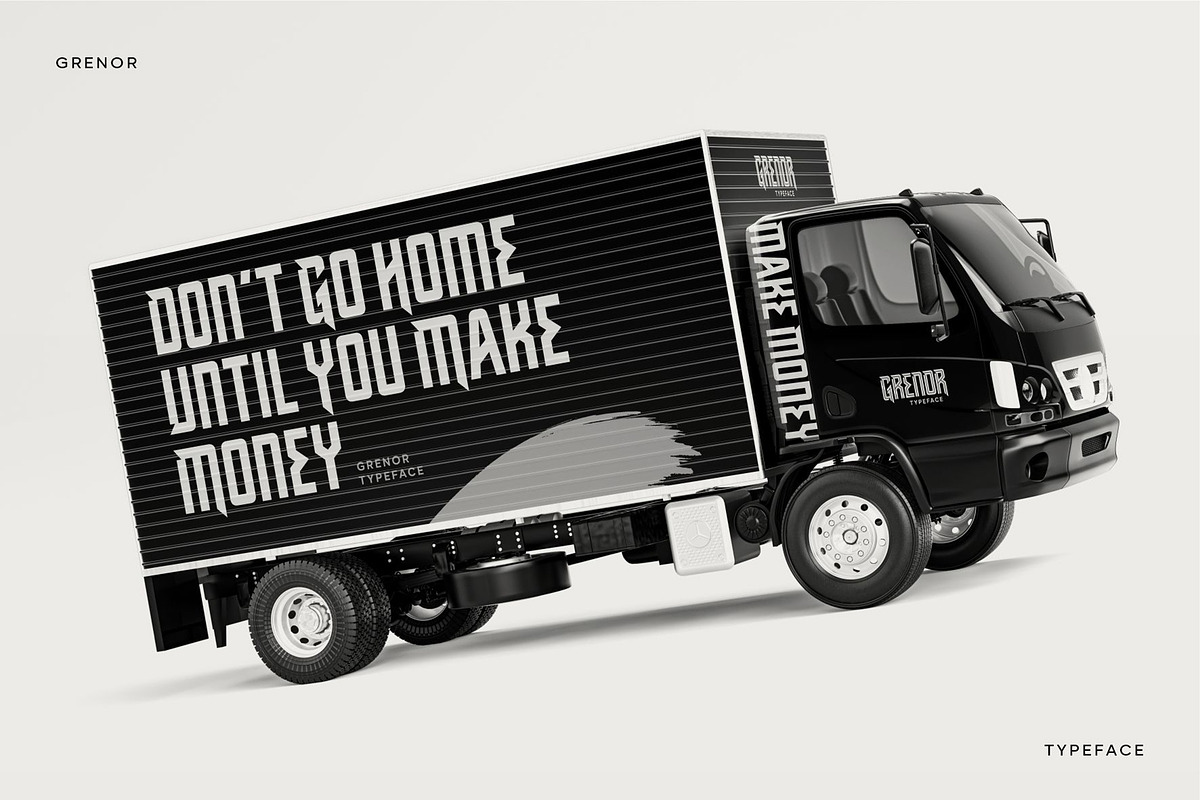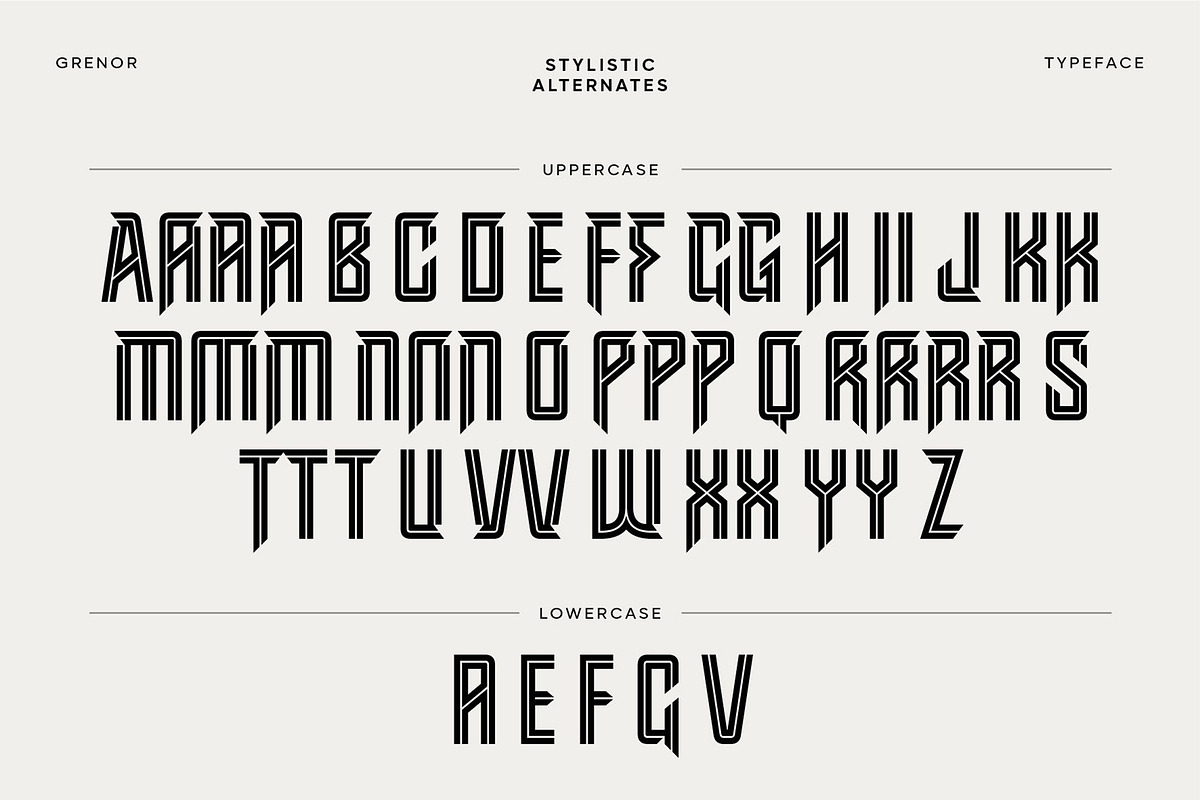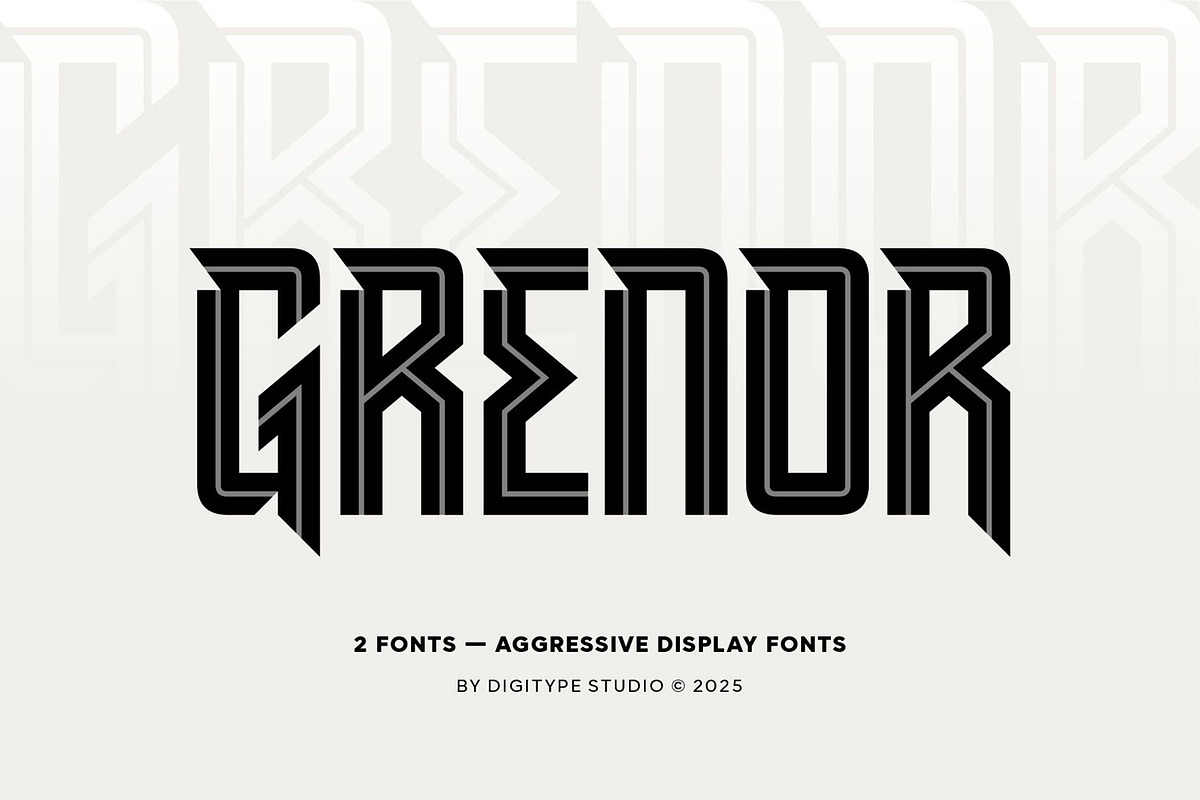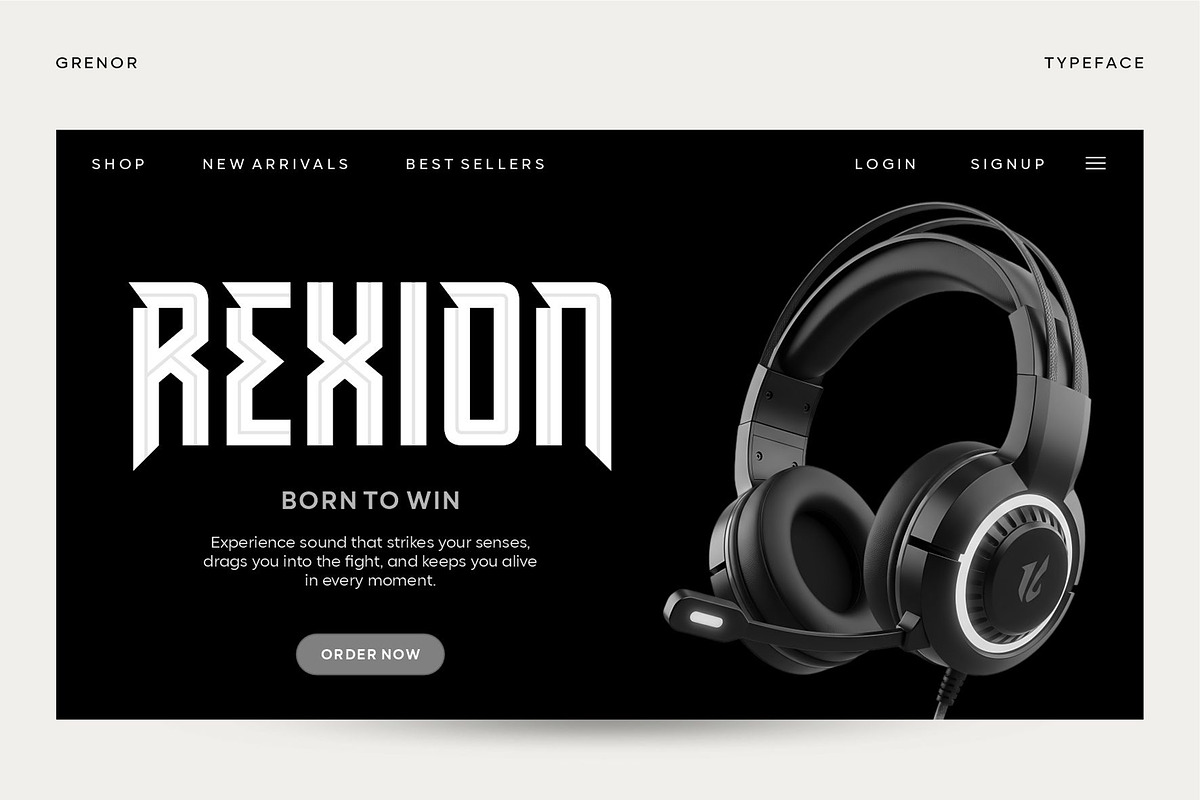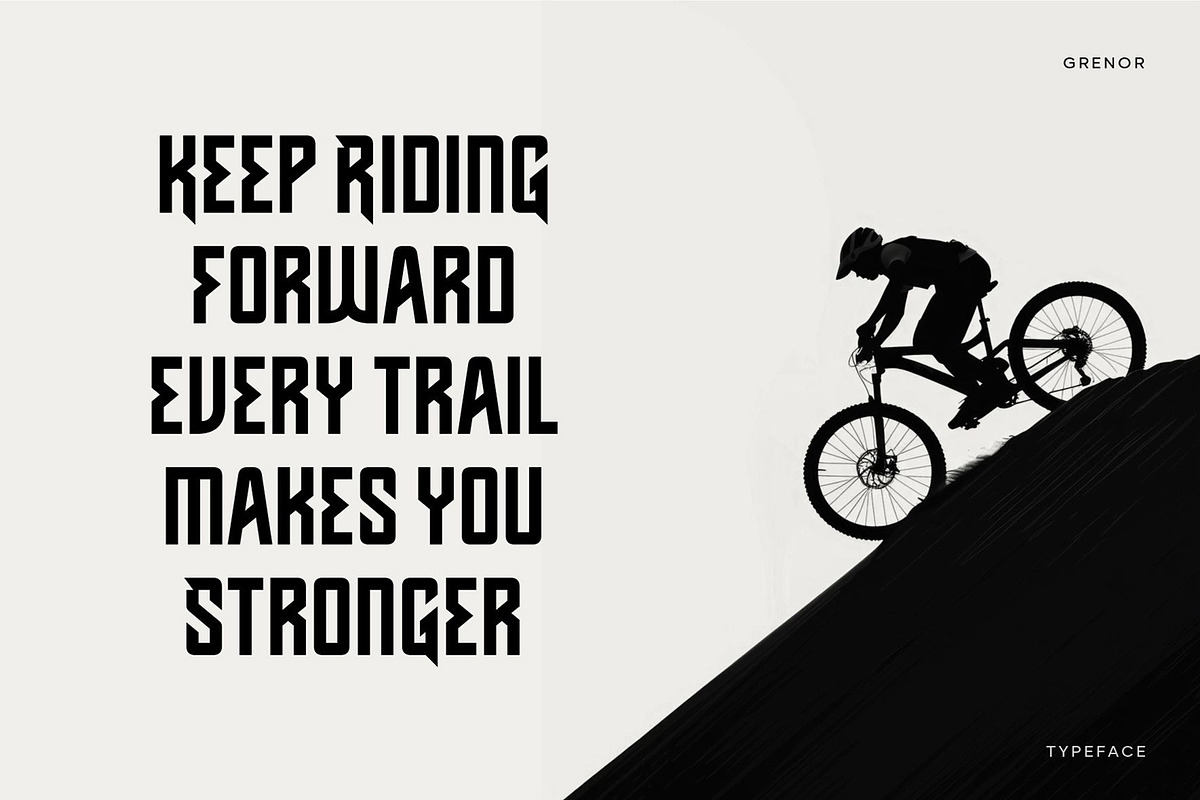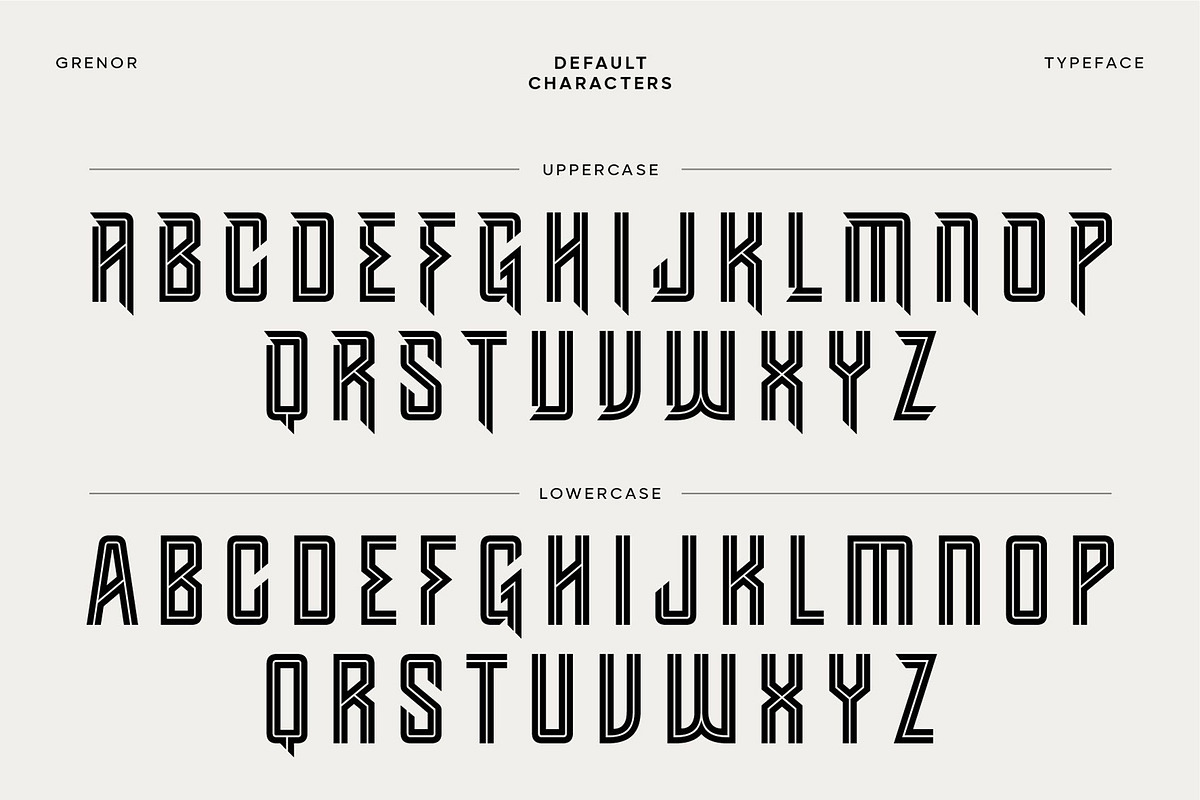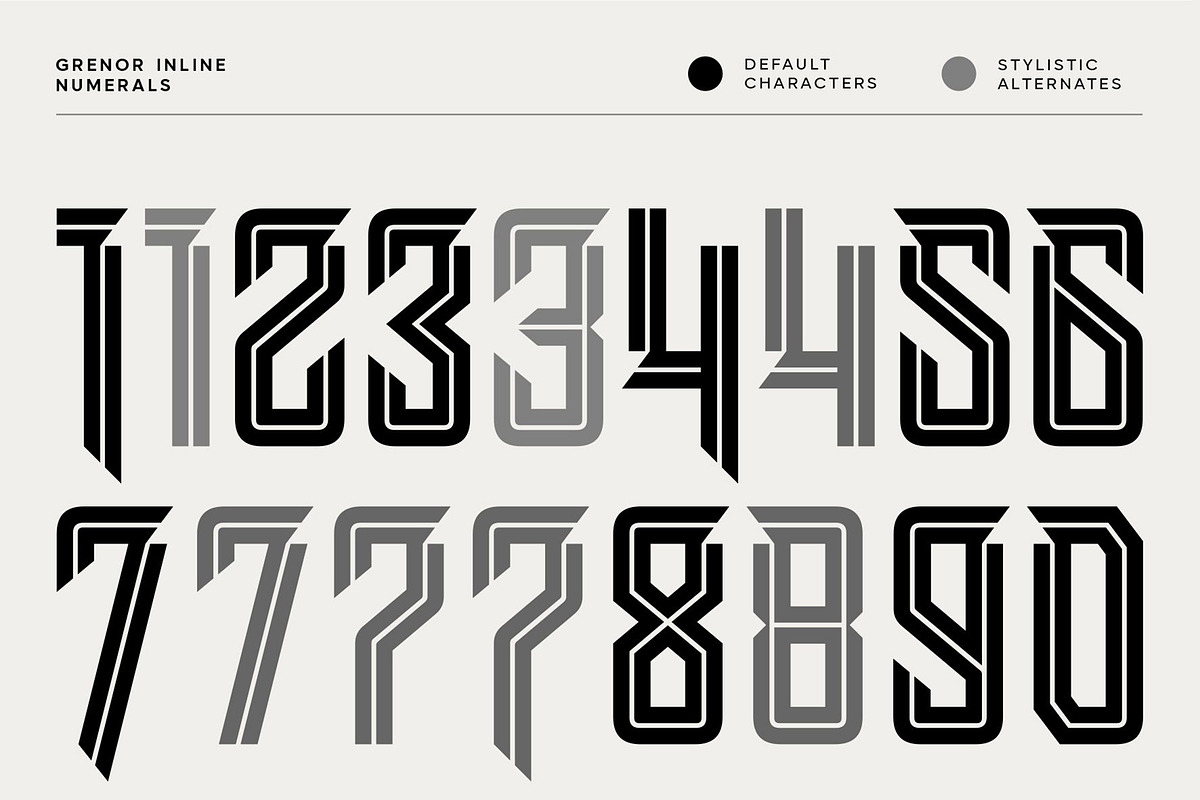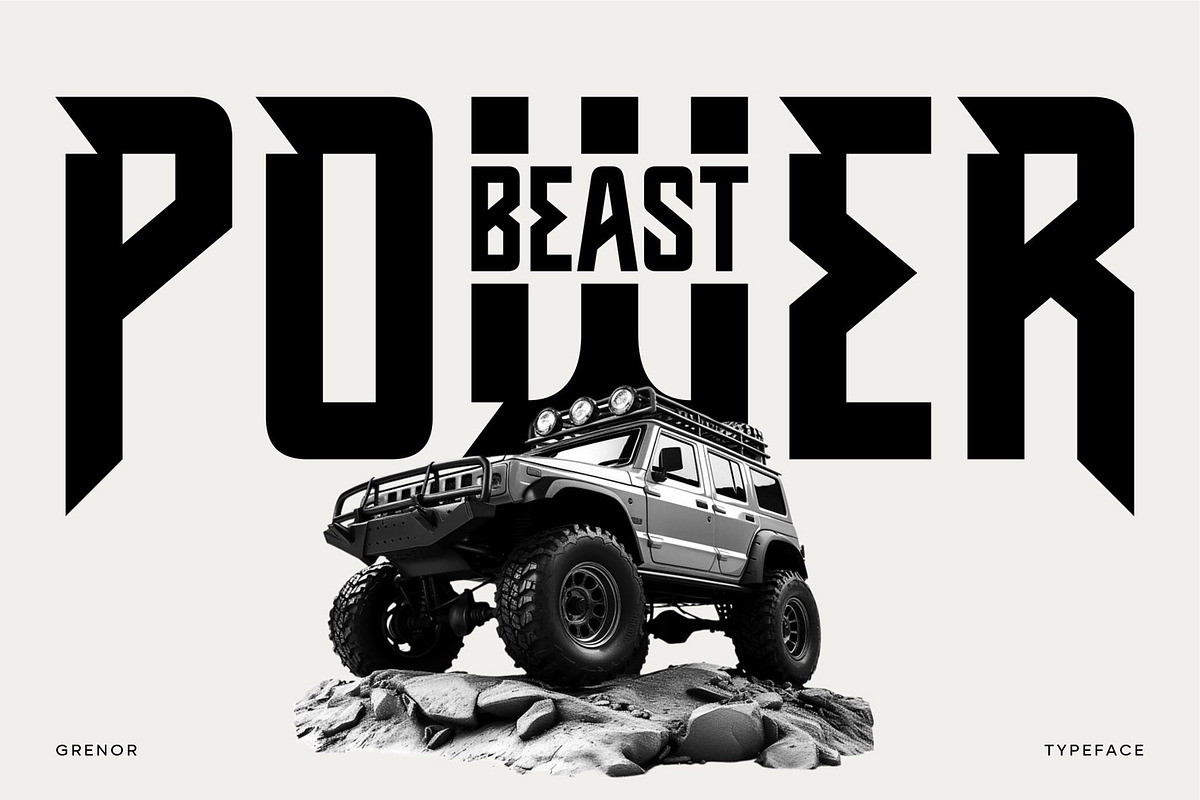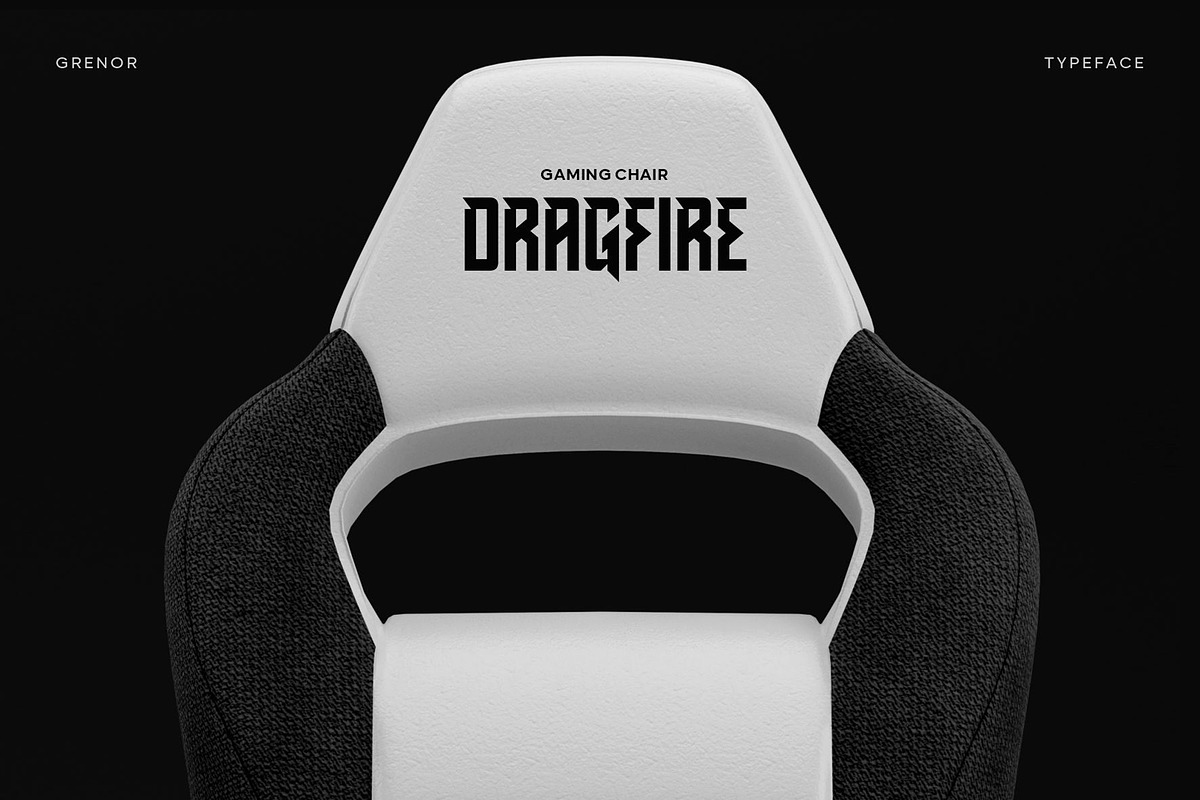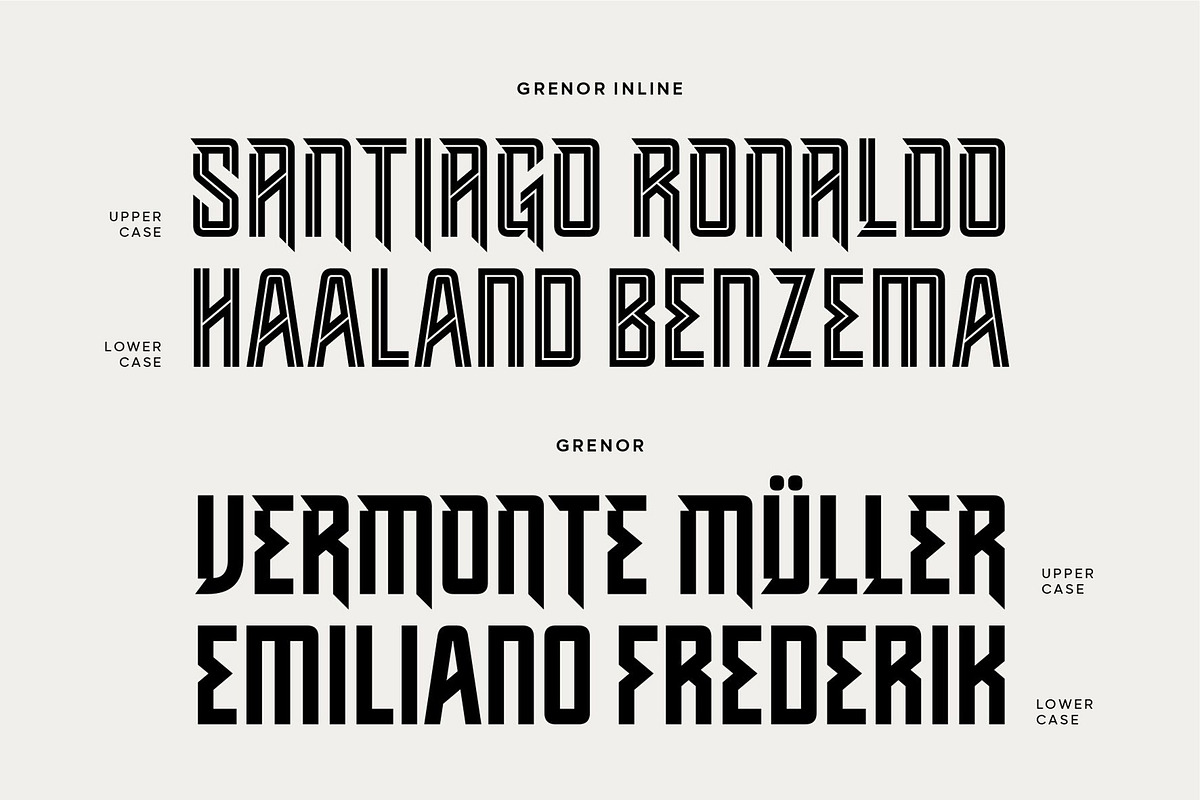
Grenor | Aggressive Display Fonts
GRENOR is an aggressive display font with a futuristic style, available in two variants: Inline and Solid. The Inline version features a bold center line that creates a technical and modern look, while the Solid version offers a heavier, more powerful appearance. Each character is crafted with geometric shapes and sharp angles, giving the font a strong and contemporary presence. Its distinctive, energetic structure makes GRENOR ideal for headlines, logos, posters, esports visuals, and any design project that requires a bold and impactful identity.